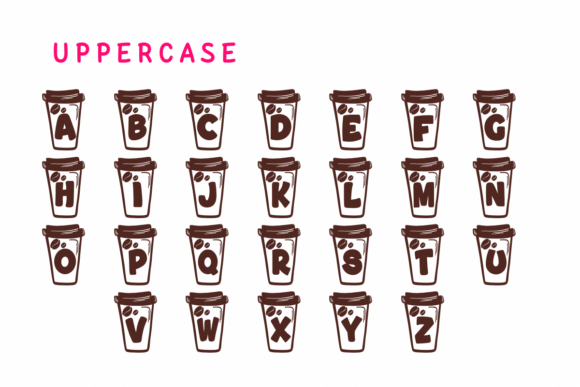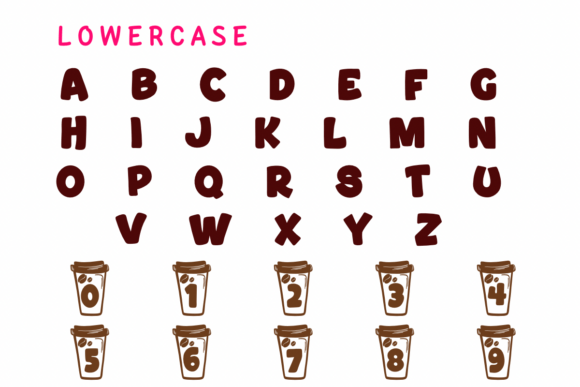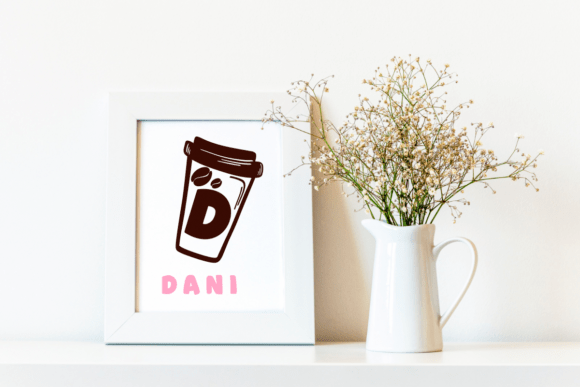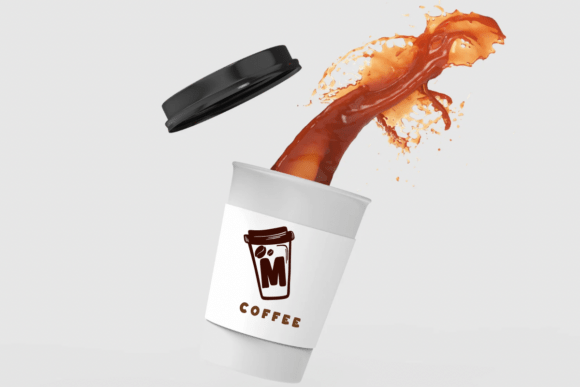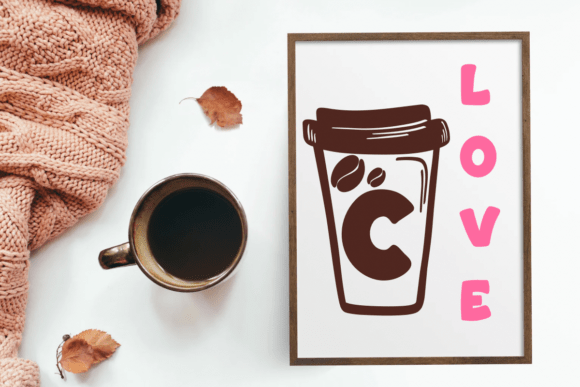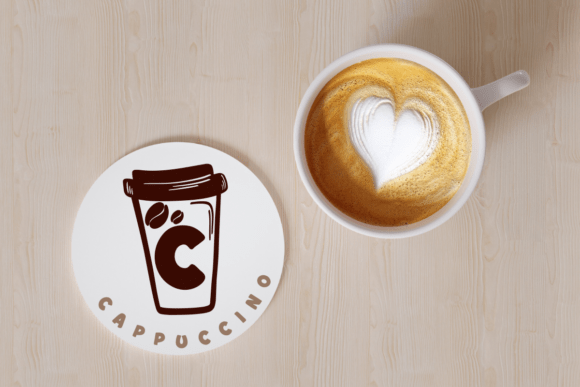
The Perfect Cup: Exploring the Delightful World of Coffee Mug Font
I’ll never forget the time I was working on a project for a client who wanted a custom mug design. I had all the graphics and layout ready, but I was stuck on finding the perfect font. That’s when I stumbled upon Coffee Mug Font, and it instantly became my go-to choice. In this article, I’ll share my love for this decorative font, its features, and how to make the most of it in your designs.
- ✨ Unique and playful design that’s perfect for creative projects
- ✅ Highly versatile and can be used for various design applications, from notes and diaries to banners and social media posts
- 💫 Supports OpenType features, glyphs, and stylistic alternates, giving you plenty of creative freedom
While Coffee Mug Font is an excellent choice, there are a few things to keep in mind:
- 🤔 Some characters might be a bit tricky to read at smaller font sizes, so it’s best to use it for larger designs or headlines
- ⚠️ Limited availability of special characters, so make sure to test the font before committing to a project
The Story Behind Coffee Mug Font
Coffee Mug Font was designed with the intention of creating a fun, yet elegant, typeface for everyday use. The designer aimed to craft a font that would bring a smile to people’s faces while still being legible and versatile. Whether you’re a designer, crafter, or hobbyist, Coffee Mug Font is sure to become a favorite in your collection.
Q: What type of designs is Coffee Mug Font best suited for?
A: Coffee Mug Font is perfect for creative projects, such as notes, diaries, greeting cards, banners, and social media posts.
Q: Does Coffee Mug Font support OpenType features?
A: Yes, Coffee Mug Font supports OpenType features, glyphs, and stylistic alternates, giving you plenty of creative freedom.